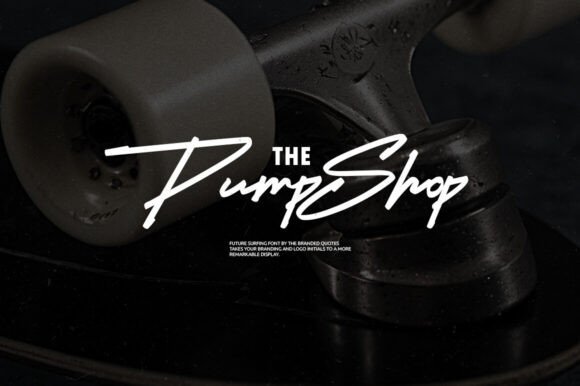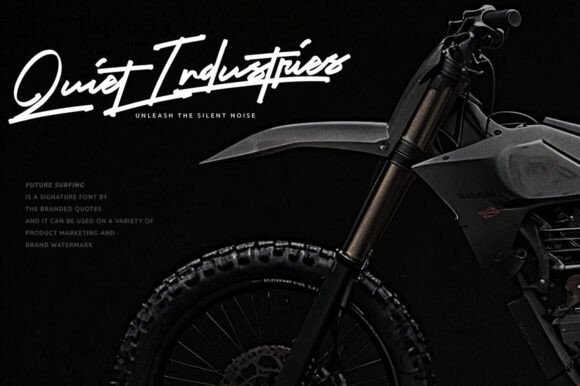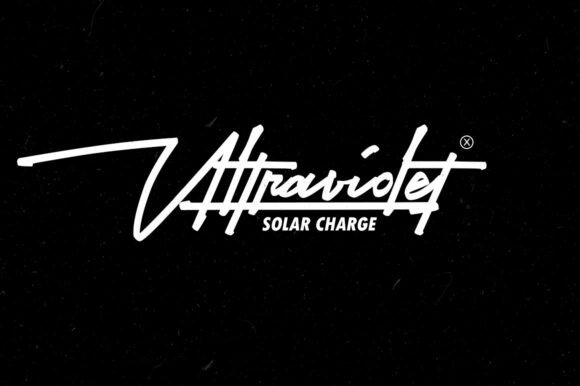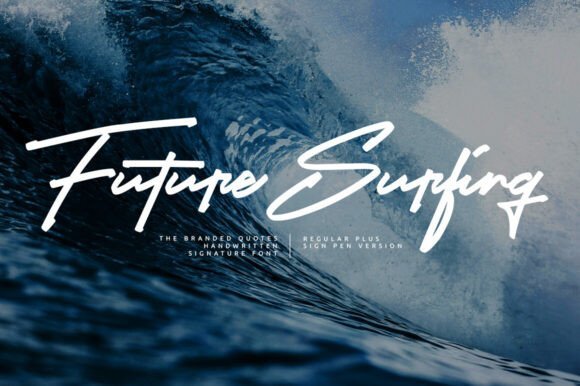
Introduction to Future Surfing Font
Future Surfing is a bold signature-style font inspired by Surfskate and Electric Dirt Bikes.
It’s ideal for branding identities and logo initials The font includes a unique Sign Pen version that mimics the look of blotted ink lines, adding a dynamic and edgy touch.
Key Features of Future Surfing Font
Why Choose Future Surfing Font?
Future Surfing Font offers exceptional quality and versatility, making it a valuable addition to your design toolkit. Whether you’re creating for personal projects or commercial use, Future Surfing Font delivers professional results.